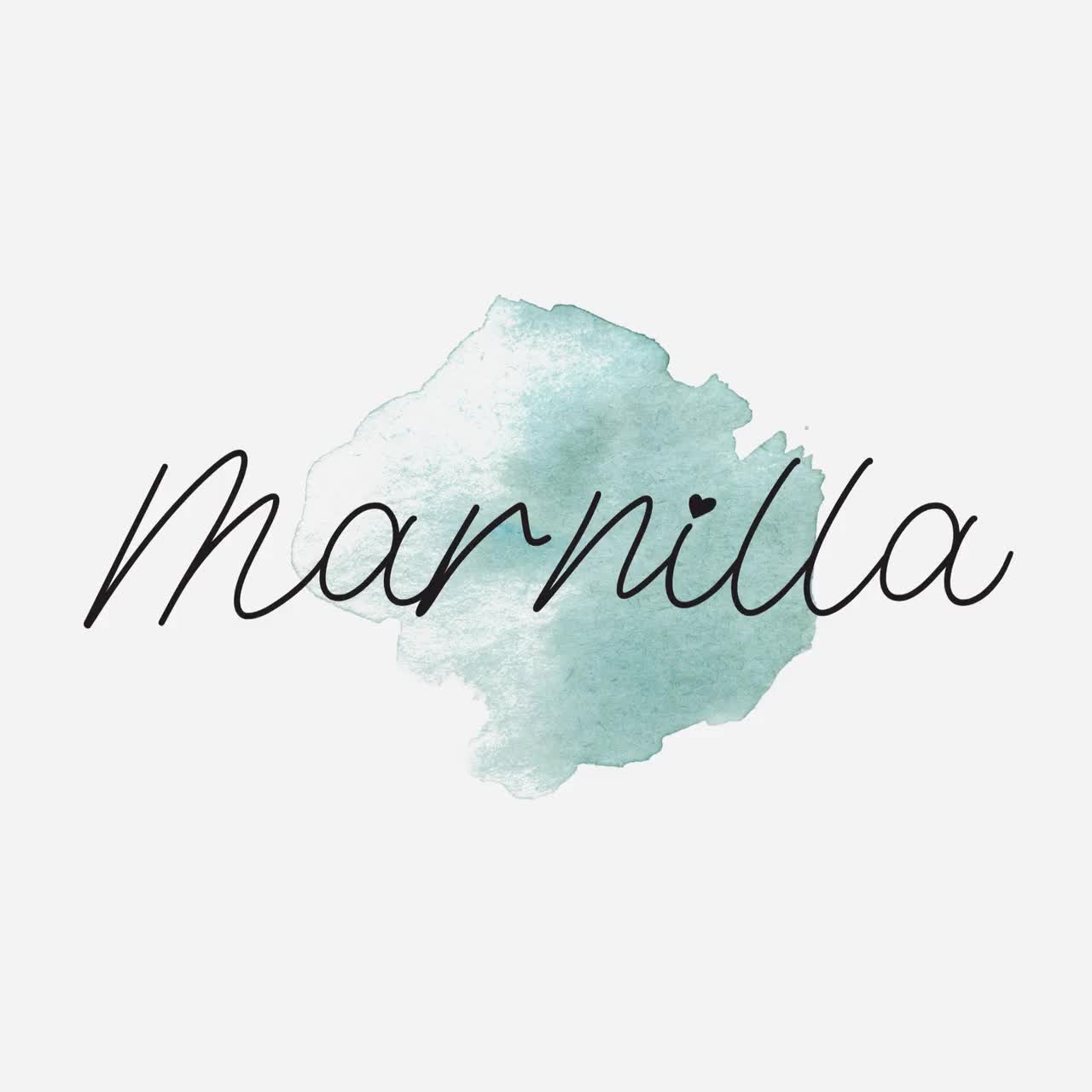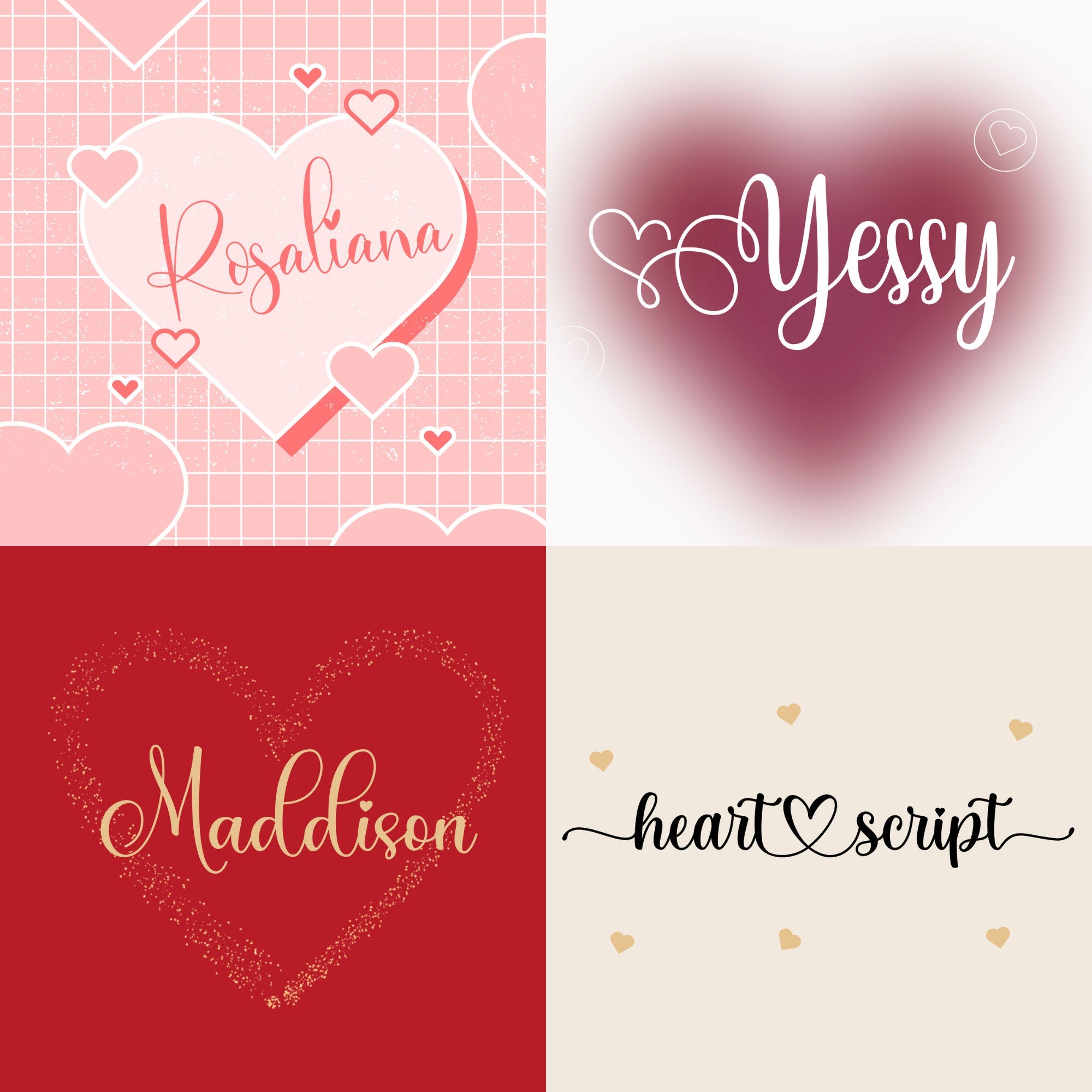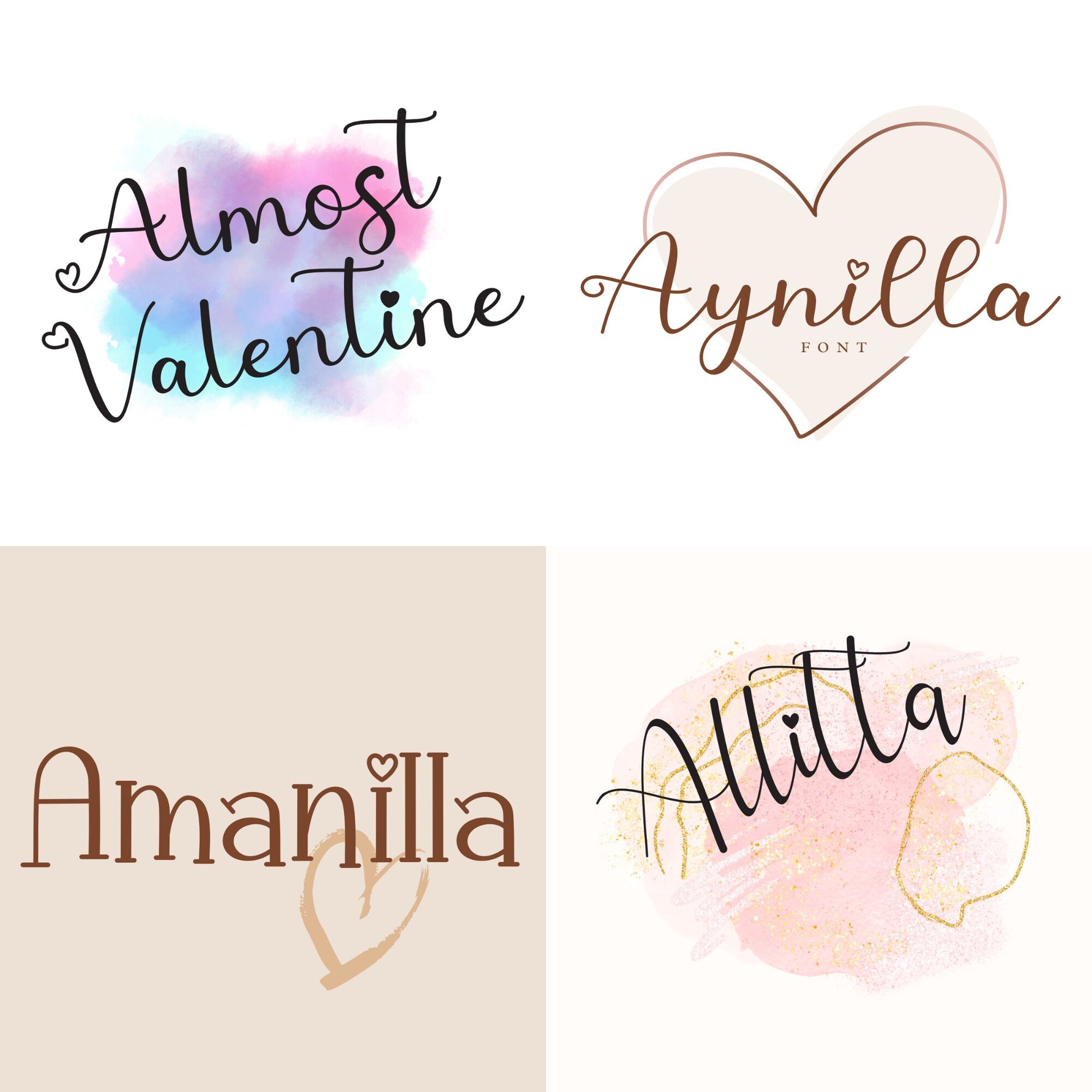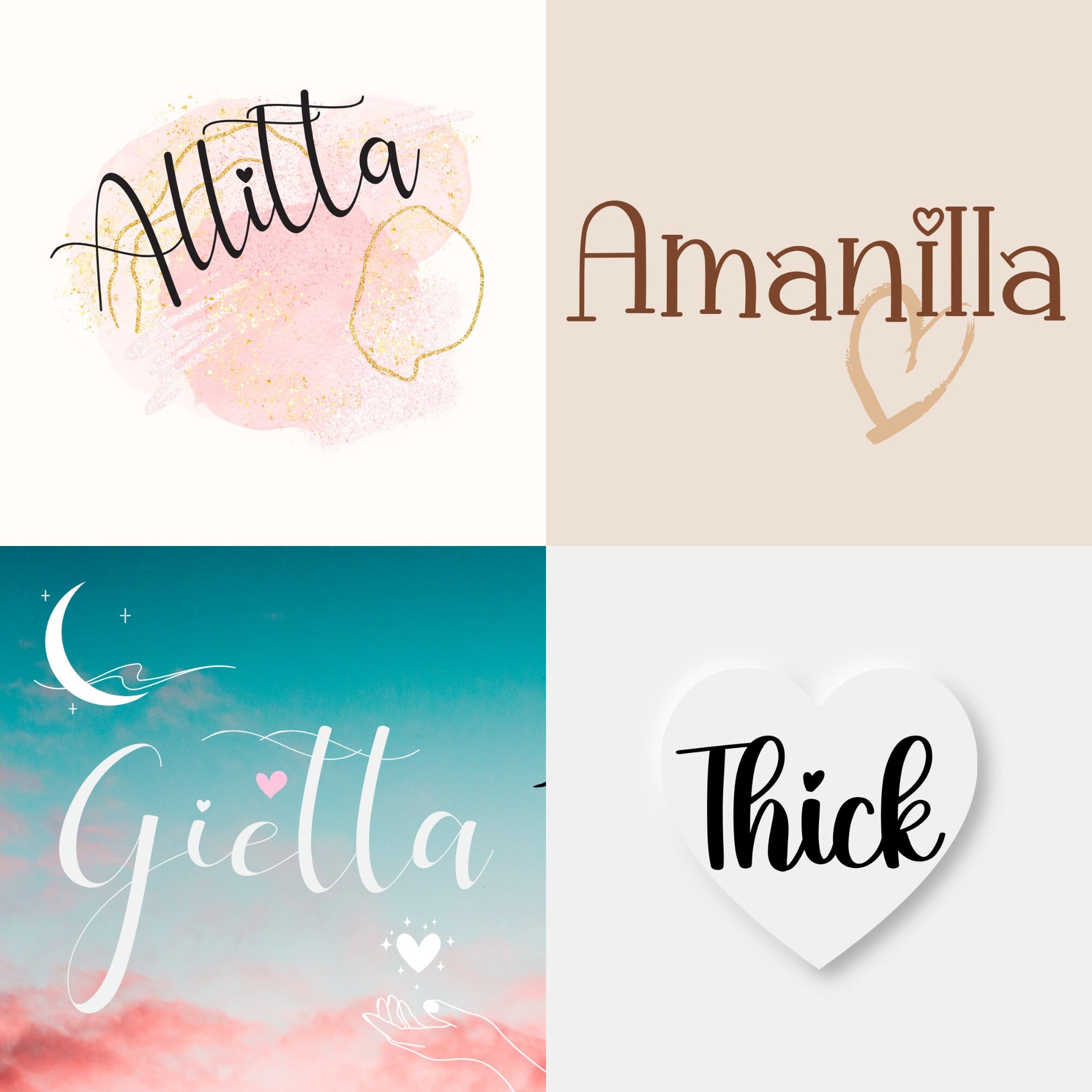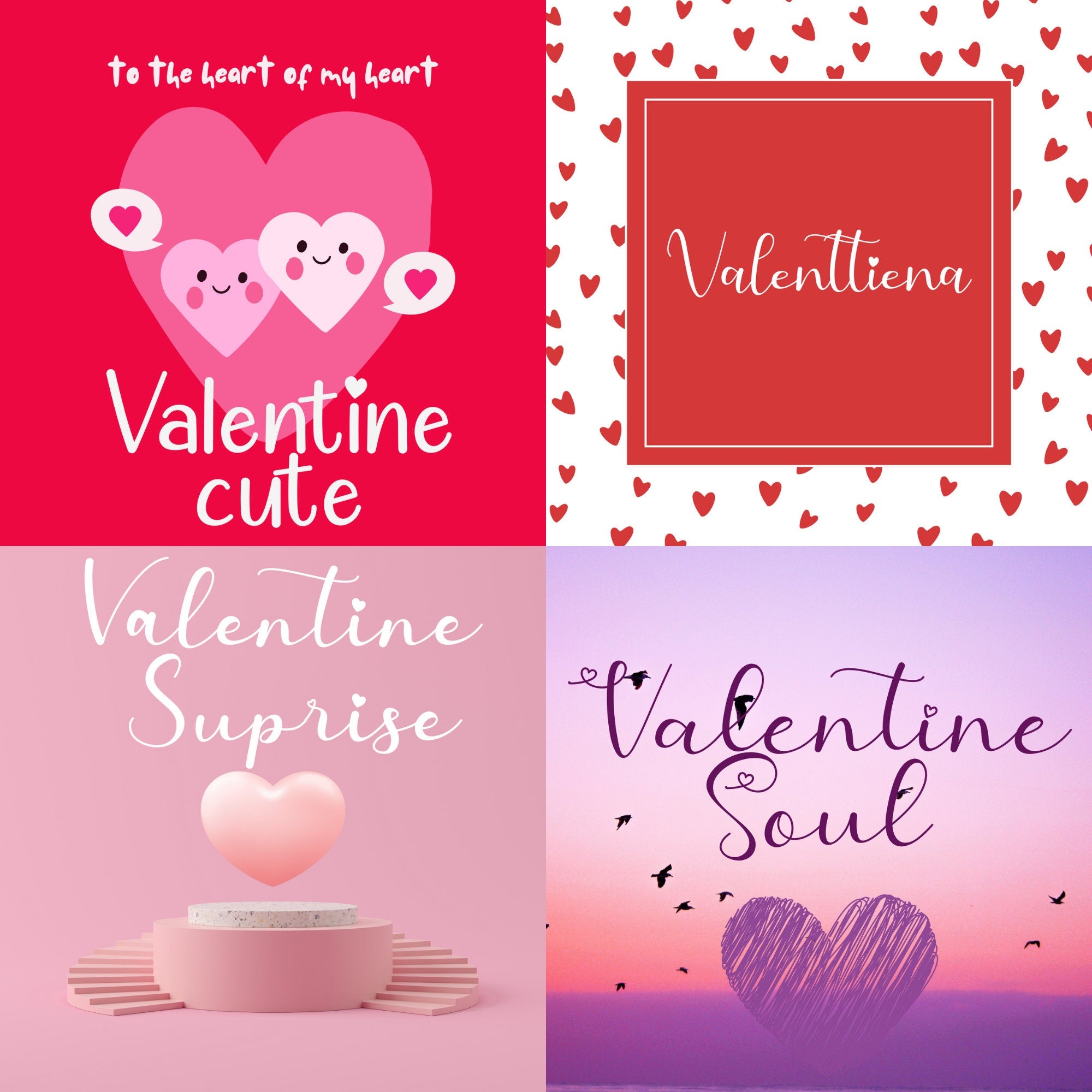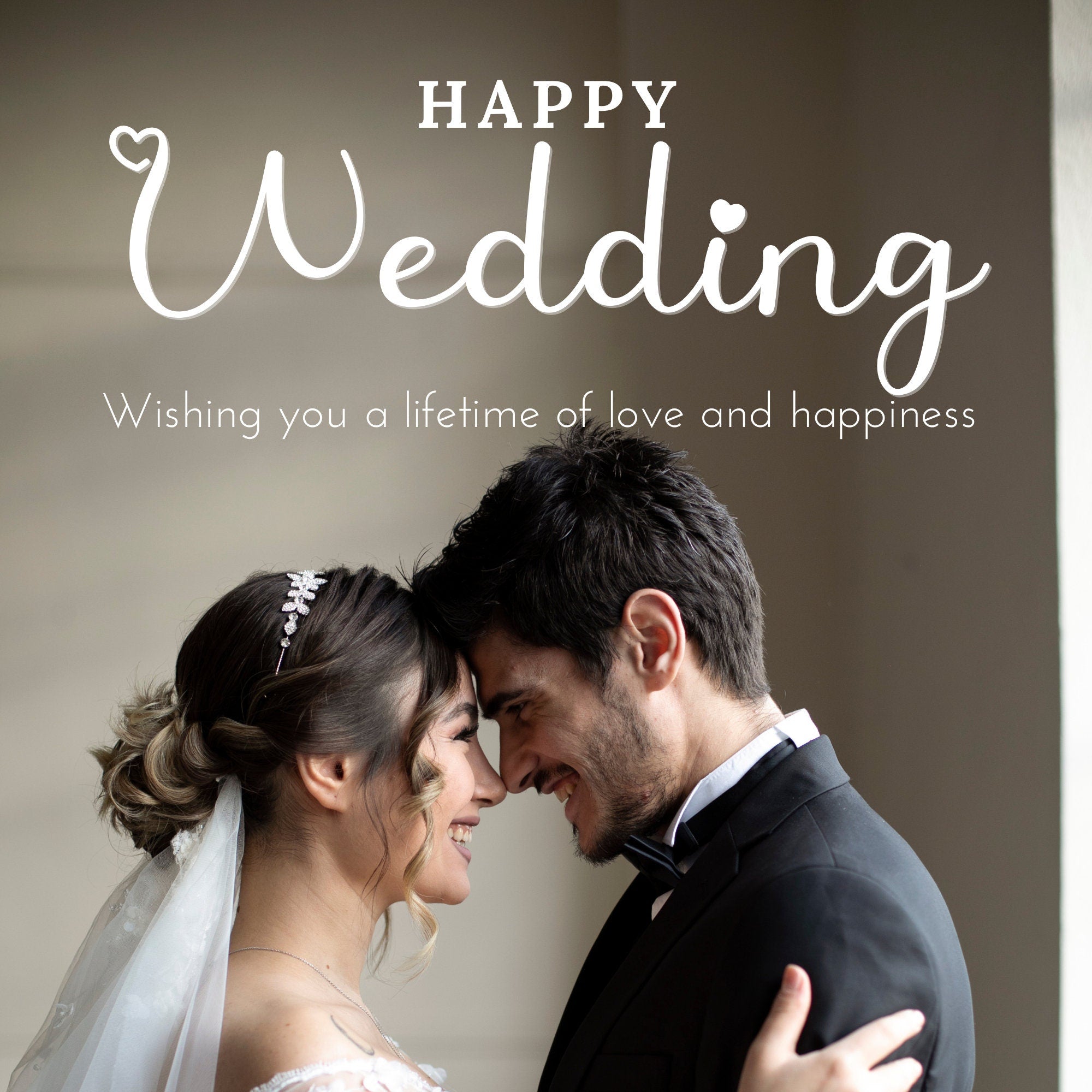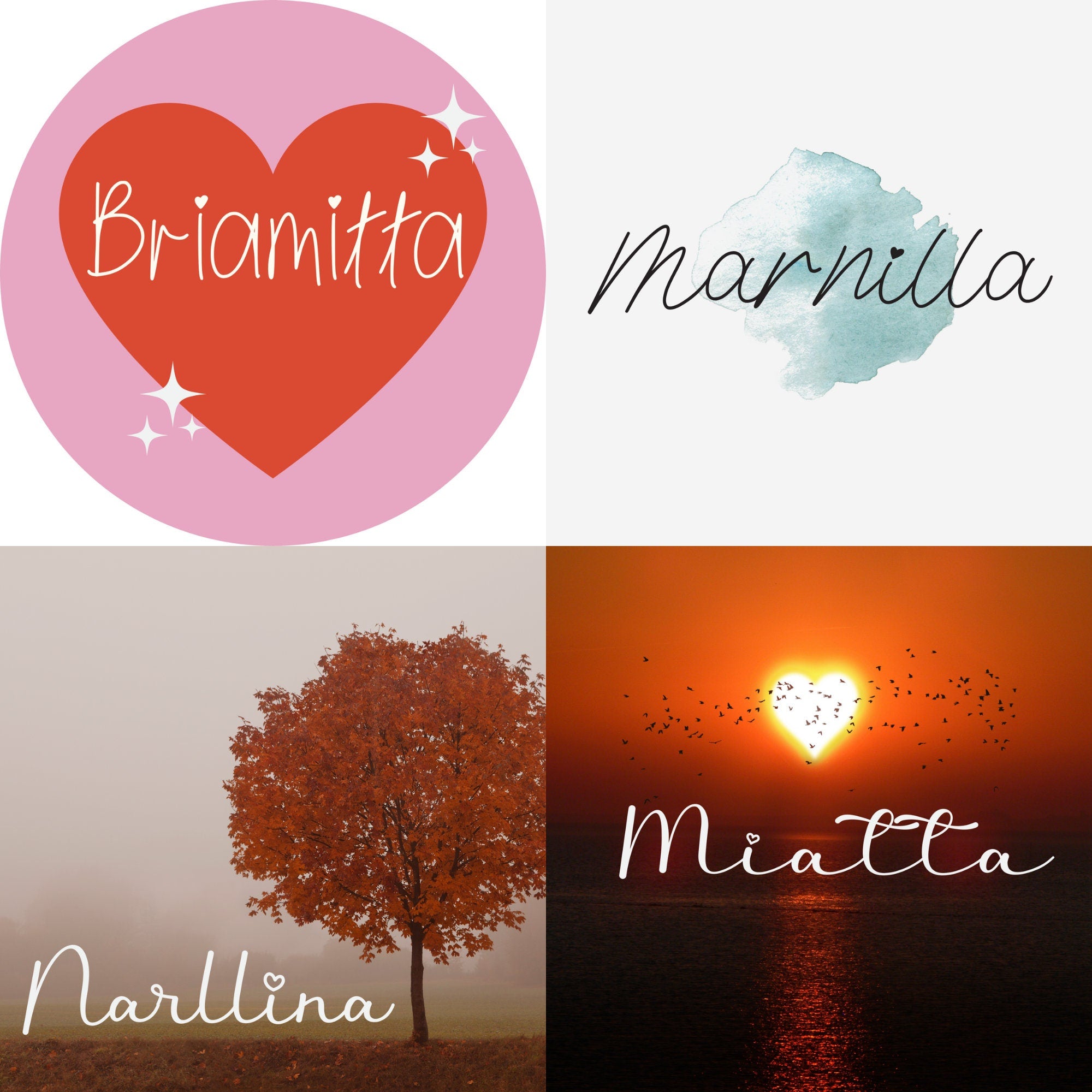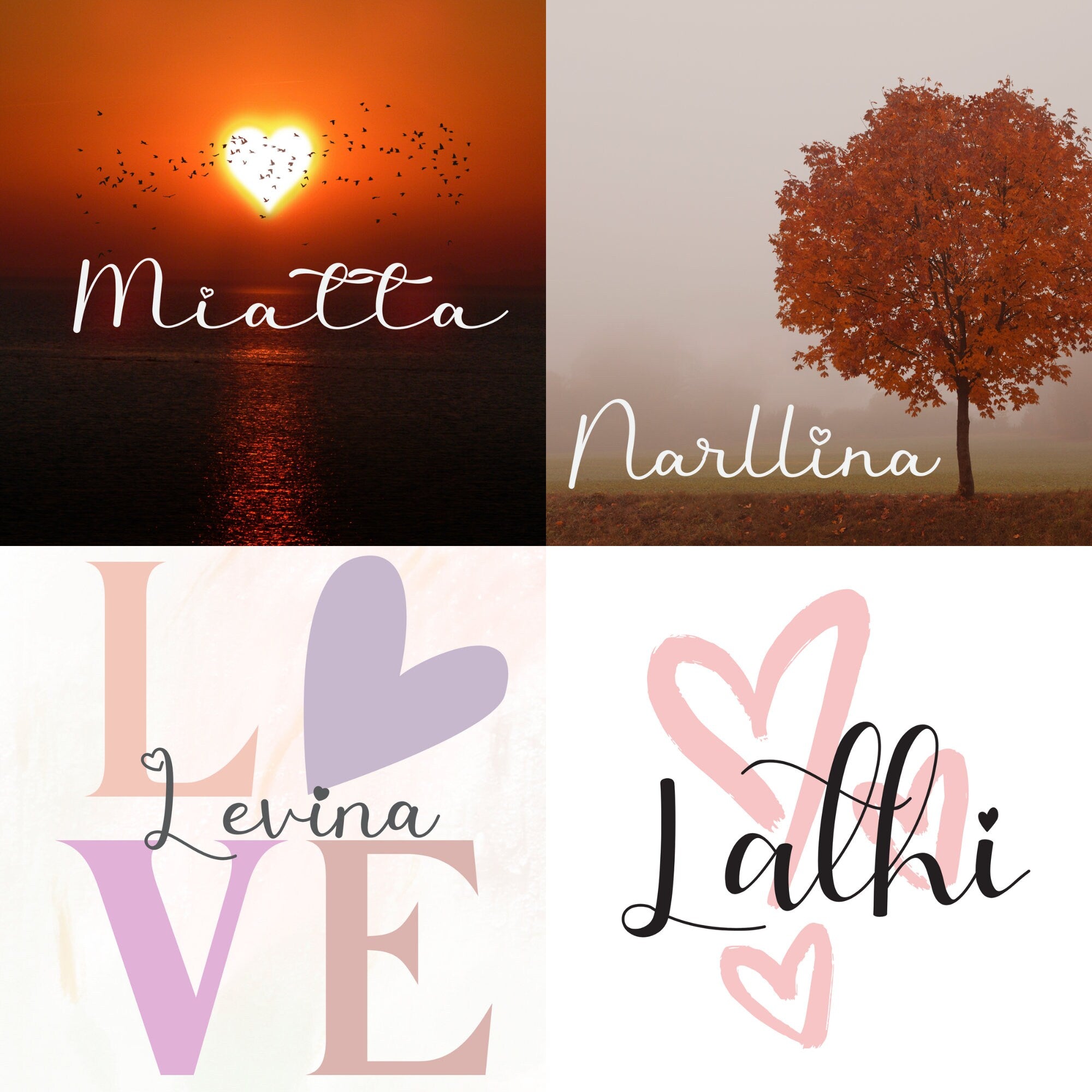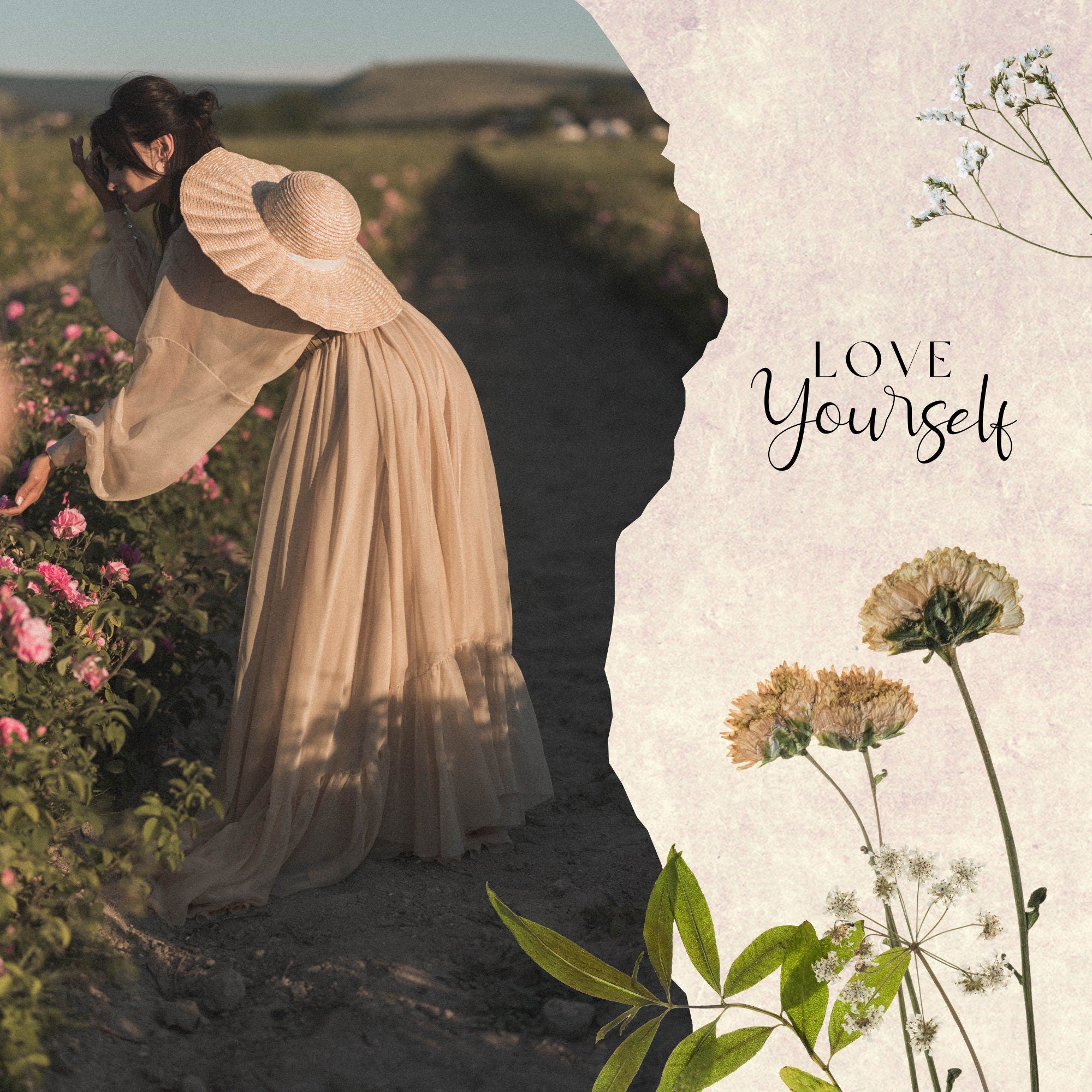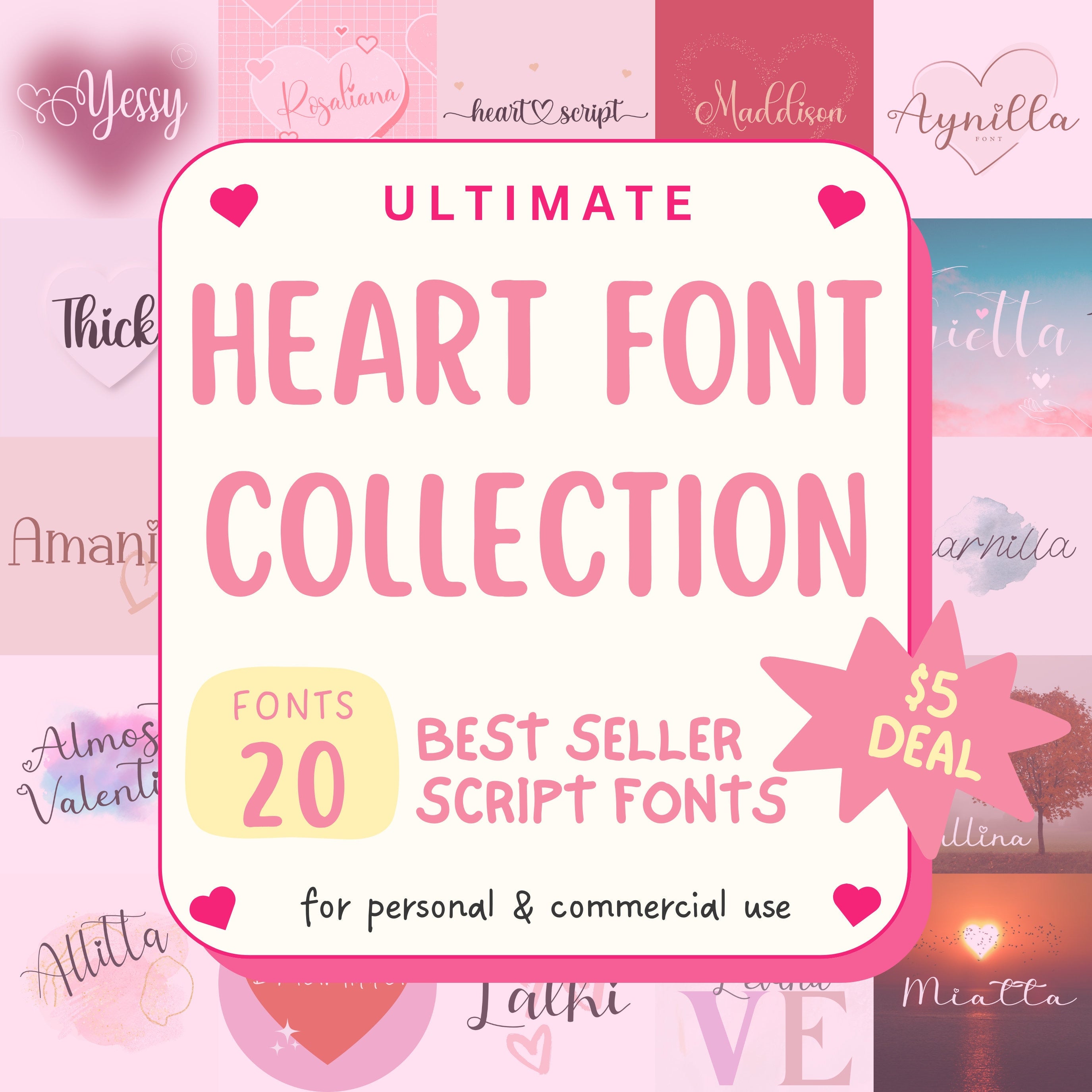
This Heart Script Font Bundle delivers 20 romantic cursive fonts with heart-tipped glyphs and playful tails for charming designs. Files include both TTF and OTF formats for flawless use across Windows, Mac, Cricut Design Space, Canva, Procreate, and Adobe apps. Commercial license covers up to 100 copies, letting small businesses sell printed goods or digital products without fuss. Fonts are organized in a single instant-download ZIP for quick installation and minimal setup time. Each font includes alternate glyphs and heart ligatures accessible via the glyphs panel or private use area. Ideal for wedding invites, greeting cards, vinyl crafts, mockups, and Cricut projects that need romantic script charm. Installation tips and video guides for Windows, Mac, Cricut, Canva, and Procreate are included to make things delightfully simple. Total bundle size is small and downloads fast, keeping your workflow speedy and focused on creativity. Seller support is available if you need help with glyphs, installation, or commercial use questions. No physical item ships — this is a digital product delivered instantly after purchase.
Number of fonts 20 unique script fonts with heart ligatures
Glyphs & alternates Includes heart glyphs, tails, and alternate ligatures accessible via Glyphs/Private Use Area